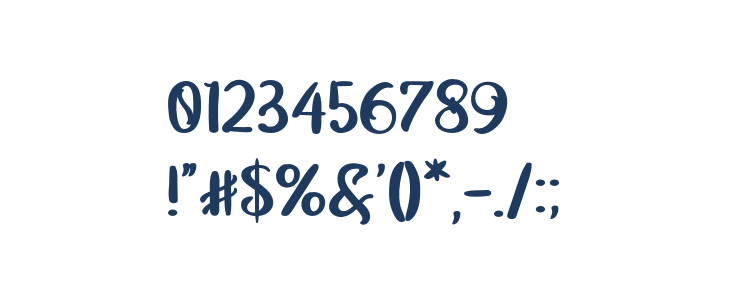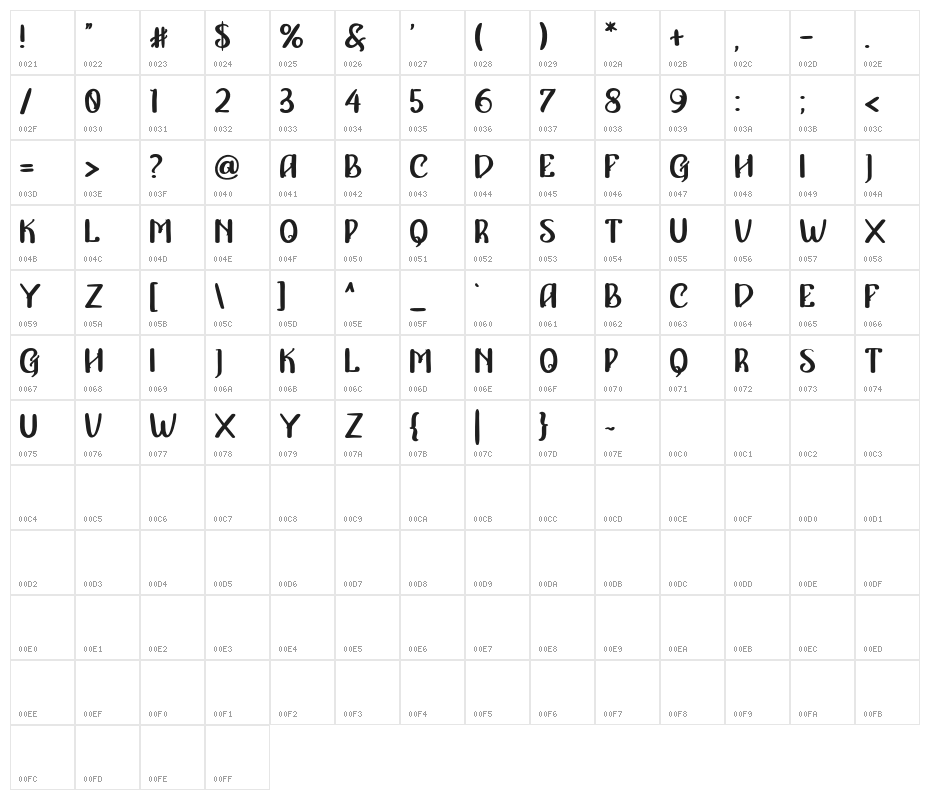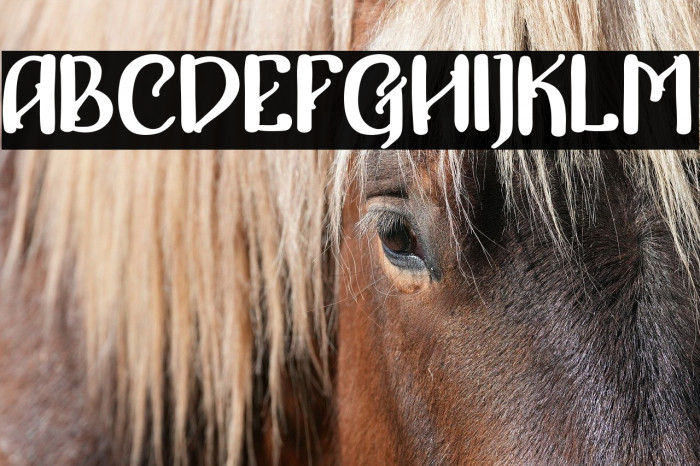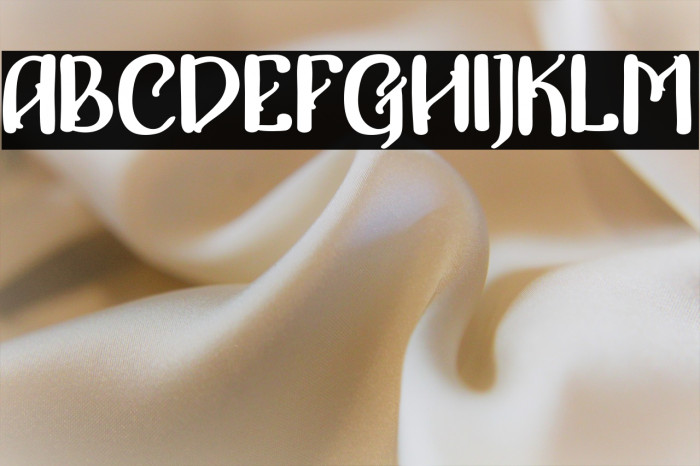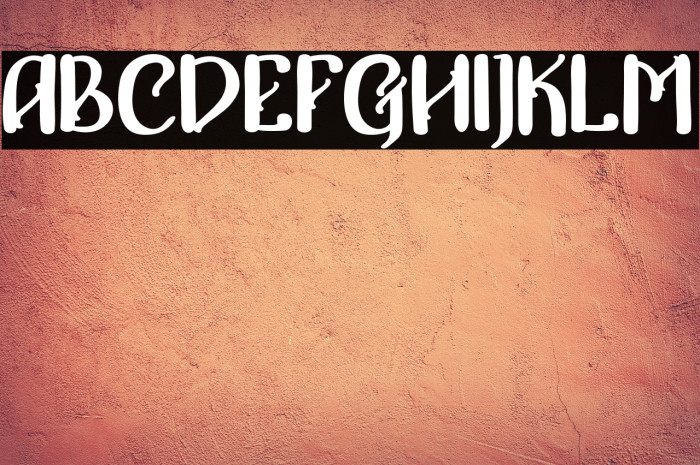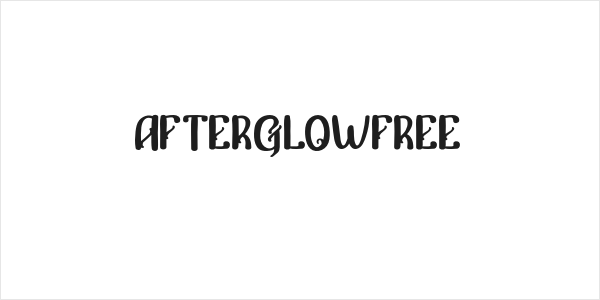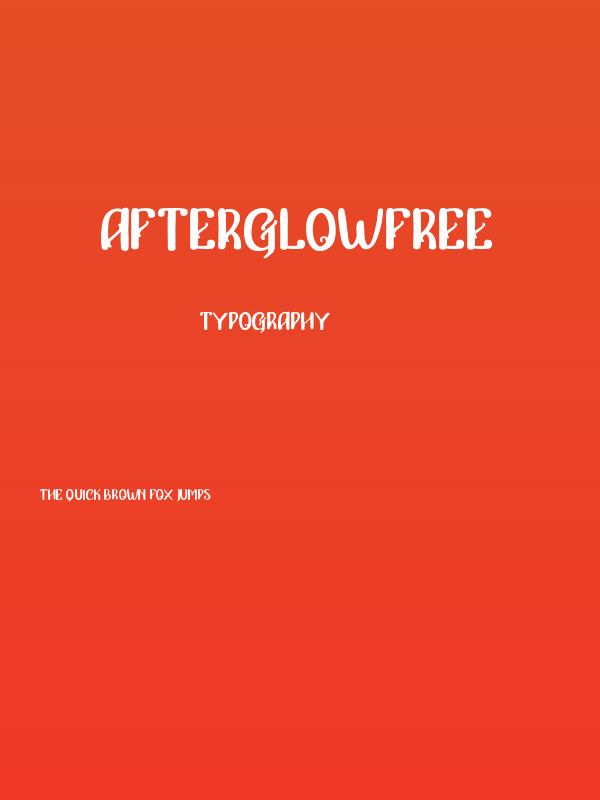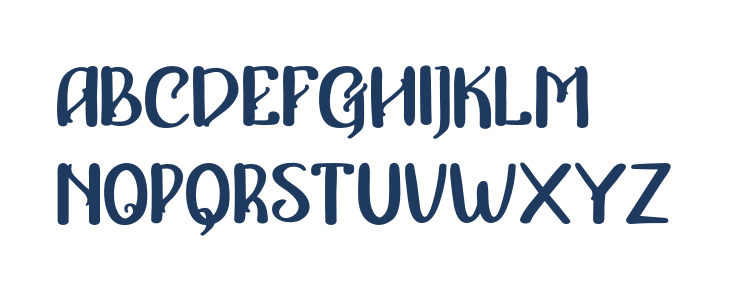
AfterglowFREE Font
AfterglowFREE Description
This font features a bold and dynamic style with a handwritten feel. The characters are thick and rounded, giving a sense of playfulness and energy. The uppercase and lowercase letters are consistent in their boldness, with slight variations in stroke that add a personal touch. The numerals are equally bold, maintaining the overall aesthetic. Special characters are creatively designed, fitting seamlessly with the rest of the font. This font is ideal for projects that require a lively and engaging appearance.
| Proposed Projects | Perfect for posters, branding, social media graphics, and any project that needs a bold, personal touch. |